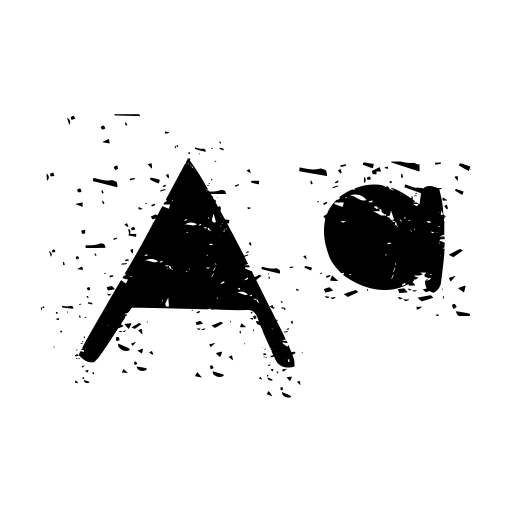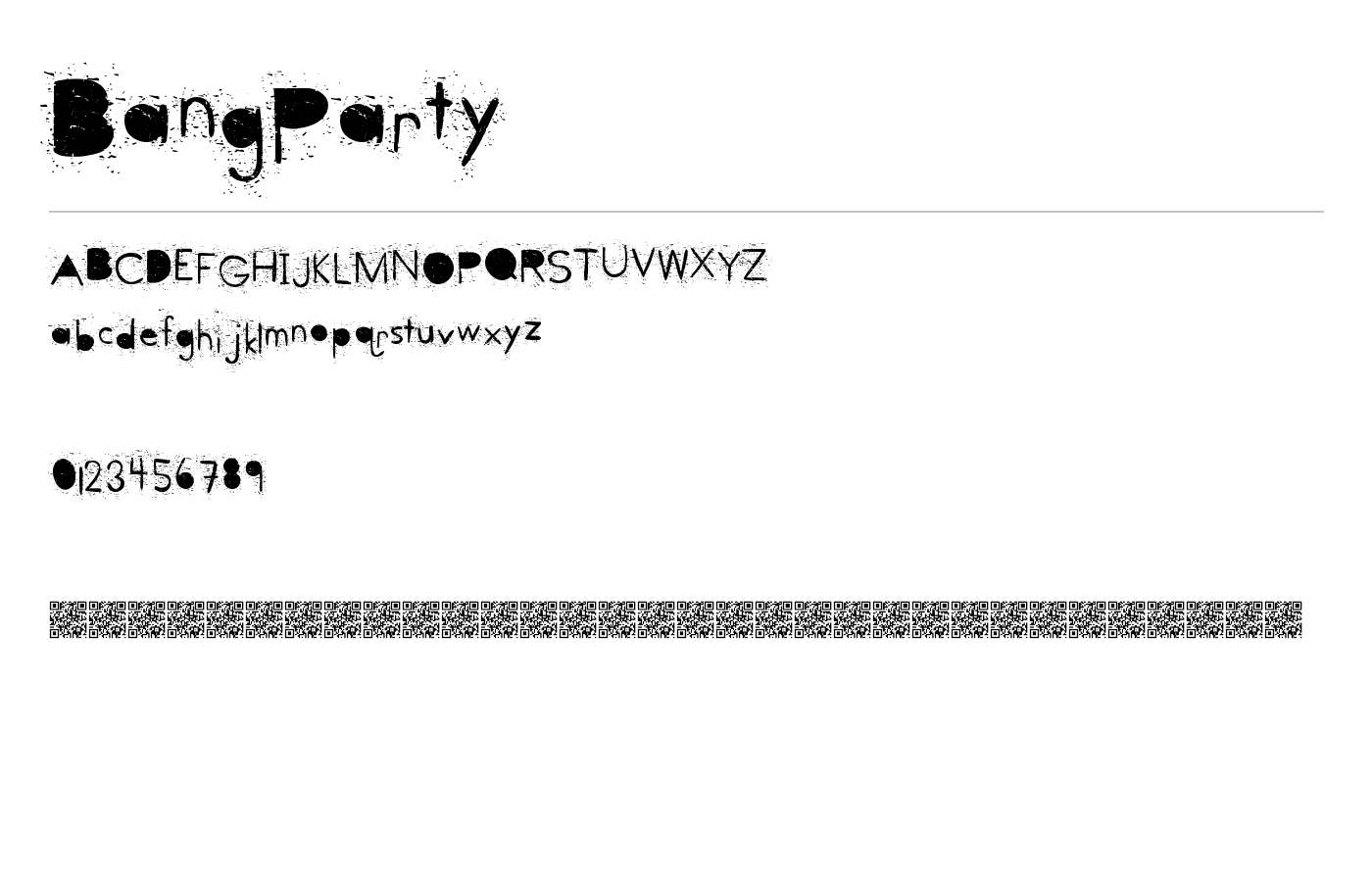
BangParty is a playful and bold display font with a distressed, grunge texture that gives it a lively and energetic vibe. Its irregular shapes and rough edges make it perfect for eye-catching headlines, party invitations, or any design that calls for a fun, informal atmosphere. This font works best where a unique, edgy look is needed to create a memorable and dynamic impression.
BangParty Font
About BangParty Font